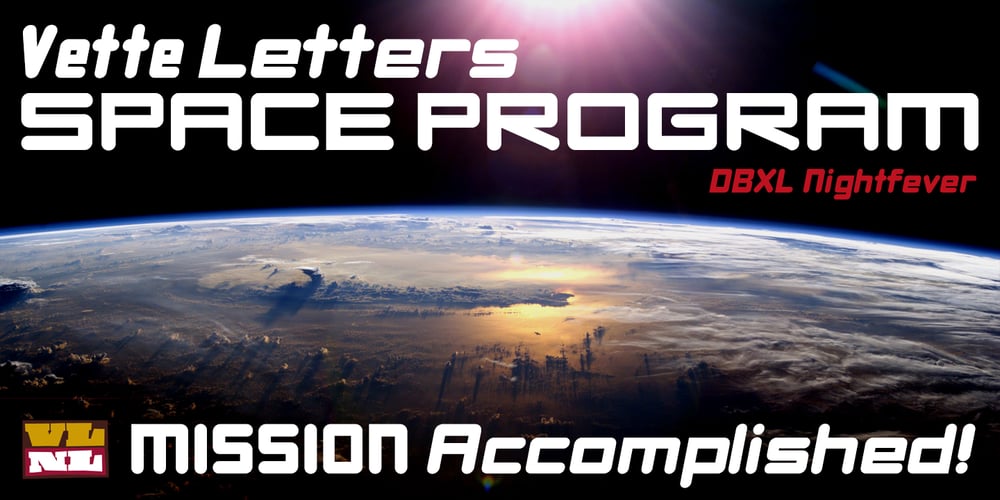
DBXLNightfever Font Family was designed by Donald Beekman and published by VetteLetters. DBXLNightfever contains 8 styles and family package options. DBXL Nightfever was originally designed by Donald Beekman in 2001 for the disco-techno-house record label of the same name, an imprint of United Recordings. Geometric and gridded, with a solid sci-fi techno feel, Nightfever still contains a lot of soul. Three additional wider weights were added for more design flexibility, as well as italics for all widths. After the record label was terminated the Nightfever fonts were used for many other DBXL design projects. It was put online for free download first in 2008, this year (2019) the design got more refined with additional accurate kerning and spacing. All fresh and new, ready for a new space age!